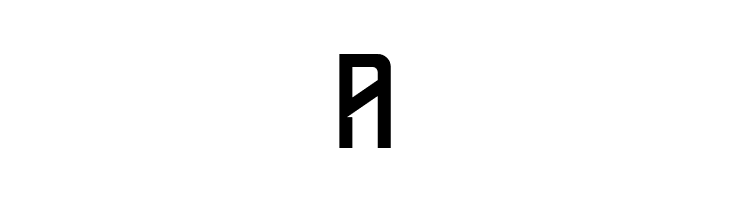
A playful and fluid handwritten font with a casual, connected style.
A dynamic and elegant script font with fluid strokes and a graceful slant.
A bold, modern sans-serif font with uniform strokes and high legibility.
An elegant and sophisticated cursive script font with fluid, connected strokes.
A playful, casual handwritten font with fluid, connected strokes.
A playful, casual handwritten font with flowing, connected letterforms.
A lively and elegant script font with smooth, interconnected curves.
A lively and expressive script font with fluid, dynamic strokes.
A bold, futuristic font with angular lines and geometric elements.
A bold, three-dimensional font with a dynamic and decorative style.
A playful handwritten font with fluid, connected letterforms and a charming cursive flow.
A playful, hand-drawn font with a whimsical and artistic style.
A bold, decorative font with a filled, striped pattern and three-dimensional effect.
A bold, hollow, and condensed font with a modern, decorative style.
A bold, hollow, 3D decorative font with strong outlines and a modern, dynamic style.
A bold, decorative font with a 3D effect and industrial texture.
A bold, hand-drawn font with a textured, sketch-like appearance.
A lively handwritten font with fluid, cursive strokes and a dynamic presence.
A dynamic, handwritten-style font with fluid, expressive characters.
A lively handwritten font with fluid, slightly slanted characters.
A bold, hand-drawn font with a rugged, organic texture.
A modern, interconnected font with continuous lines and geometric shapes.
A futuristic and geometric font with continuous line designs and a modern aesthetic.
A bold, hand-drawn font with an expressive and artistic style.
A spooky, dripping font perfect for Halloween themes.
A bold, geometric font with solid, block-like letterforms and subtle serifs.
A bold, handwritten font with a brush-like texture and dynamic style.
A bold, expressive handwritten font with a playful, brush-like texture.
A bold, expressive handwritten script with fluid, connected letters.
A lively, cursive font with bold, interconnected strokes and a dynamic slant.
An elegant and flowing script font with graceful, cursive letterforms.
A bold, distressed font with a hand-drawn, grunge style.